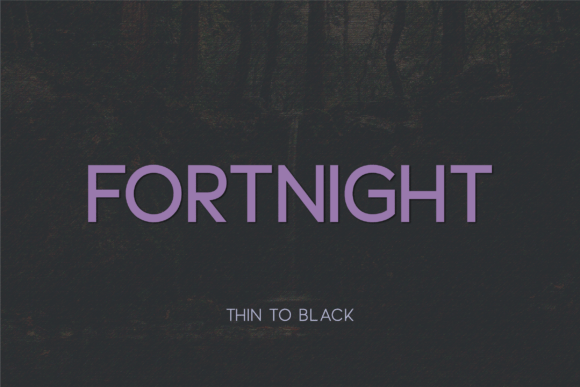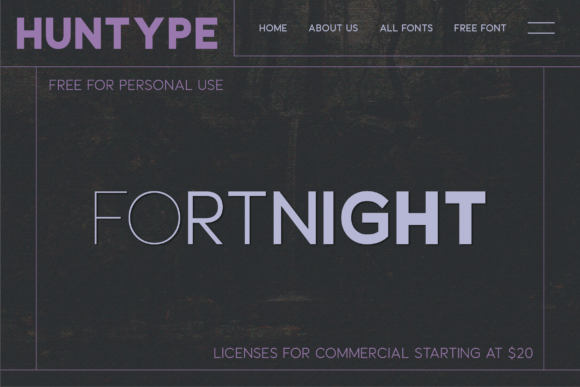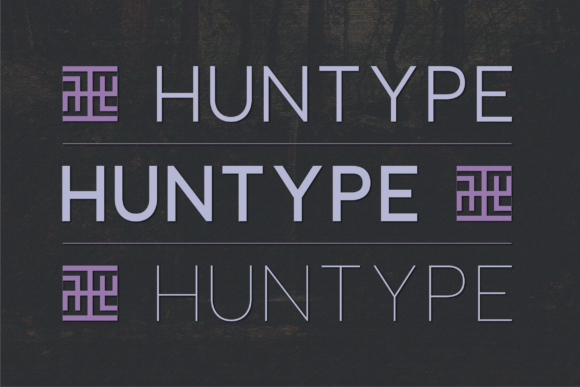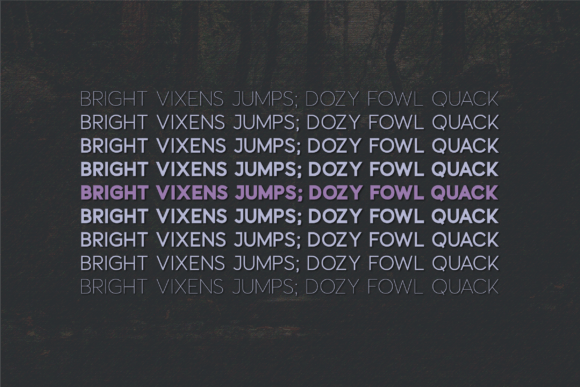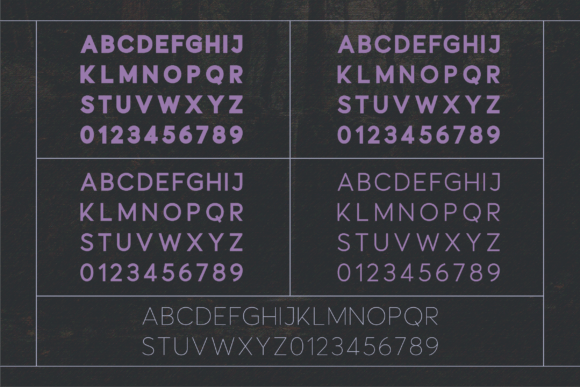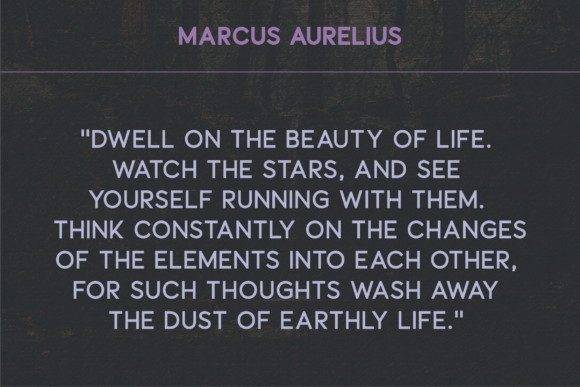
The Birth of a Design Icon: Fortnight Font
It’s that moment when the perfect font clicks – the words flow effortlessly, the message is clear, and the design comes alive. For designers, this is the sweet spot where creativity and functionality merge. And for those who’ve been there, you know that the right font can make all the difference. That’s exactly what the Fortnight Font does – it elevates your designs to the next level, infusing them with a modern and sophisticated vibe that’s impossible to ignore.
The Fortnight Font family is a masterclass in versatility, offering a range of weights and styles that cater to various design needs. Its clean, geometric aesthetic is a breath of fresh air in the world of typography, making it a go-to choice for branding, logos, and headlines. Whether you’re working on a high-end project or a personal passion project, the Fortnight Font is sure to bring a level of professionalism and polish that’s hard to achieve with other fonts.
Fortnight Font Review
- Clean Typography: The font is easy to read, even in the midst of intense action.
For the best results, use Fortnight Font in bold or italic styles to add emphasis to your text.
1. Titles and headings
2. Captions and descriptions
3. Social media graphics and posts
4. Branding and logos